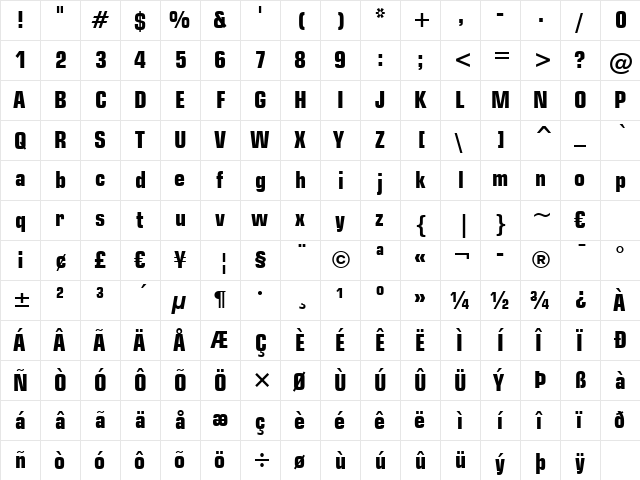
Square721 Cn BT Bold
Design Context for Square721 Cn BT Typeface
Square721 Cn BT takes a measured approach to typography — its balanced proportions and neutral character make it a reliable workhorse for both digital and print work. Its bold stroke weight gives it real presence on the page.
Pro Tip: Use Square721 Cn BT in both headline and body roles to test its range before committing to a single application.